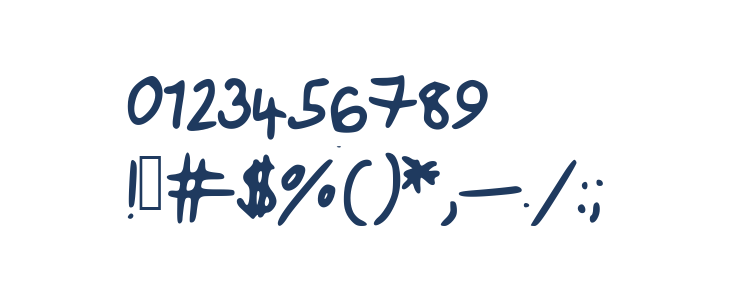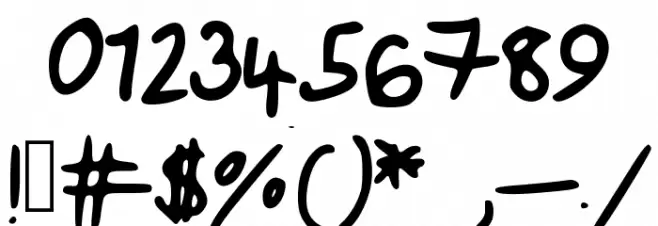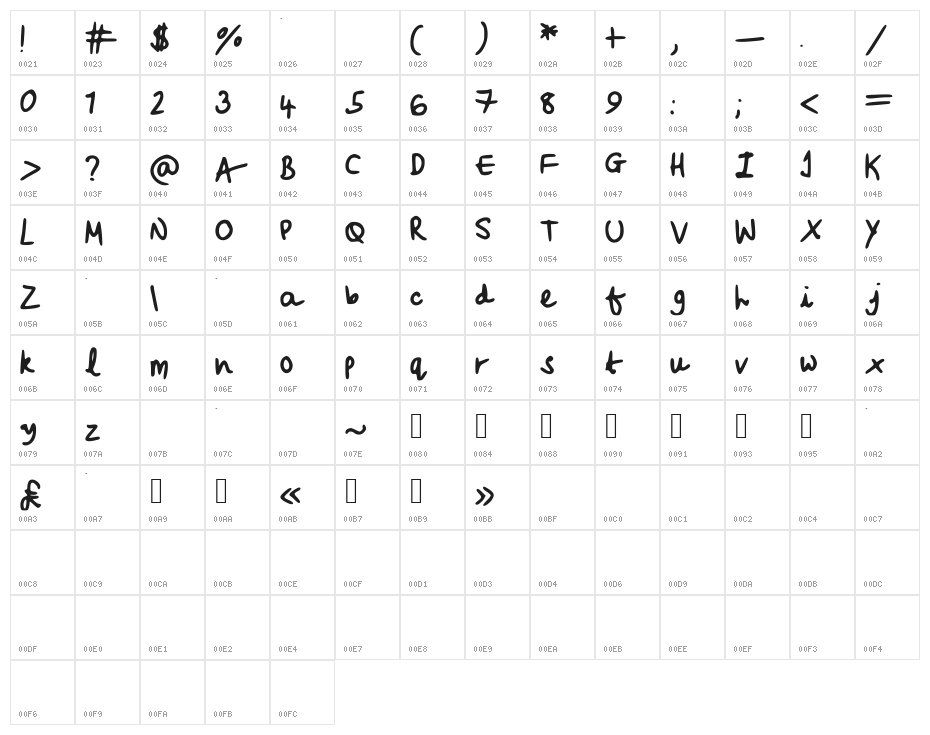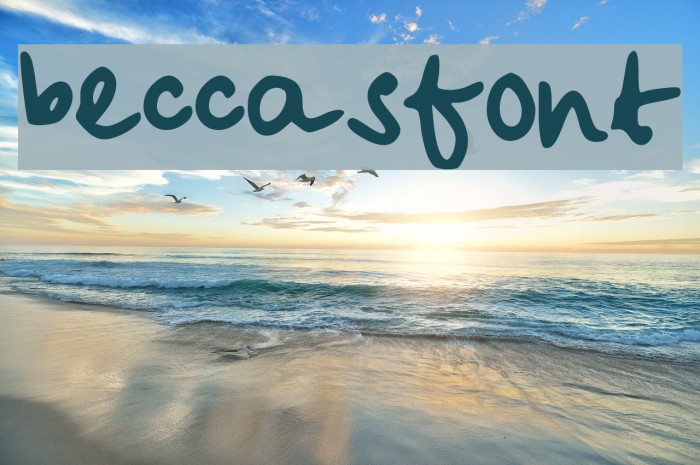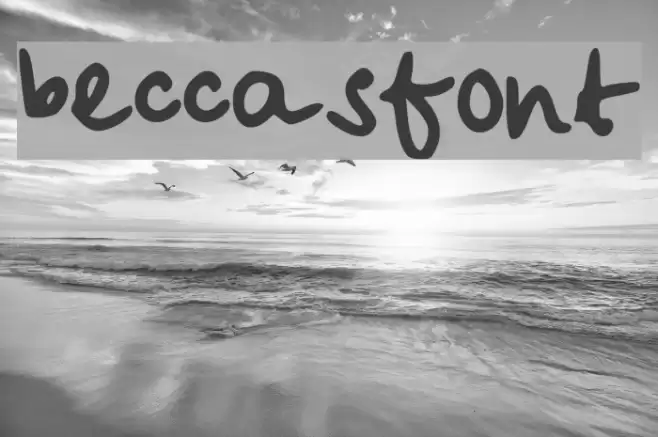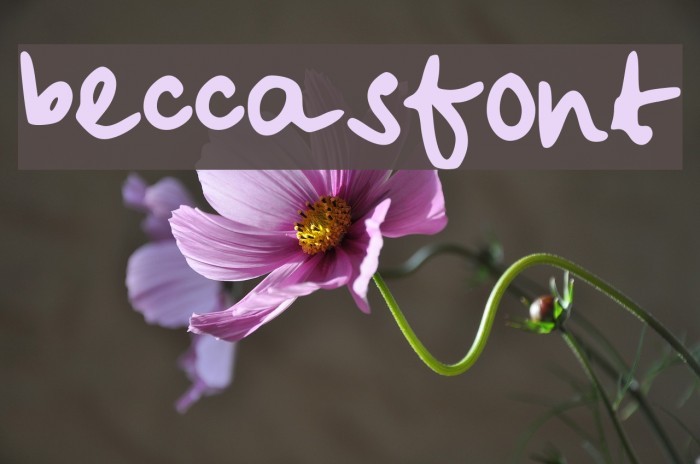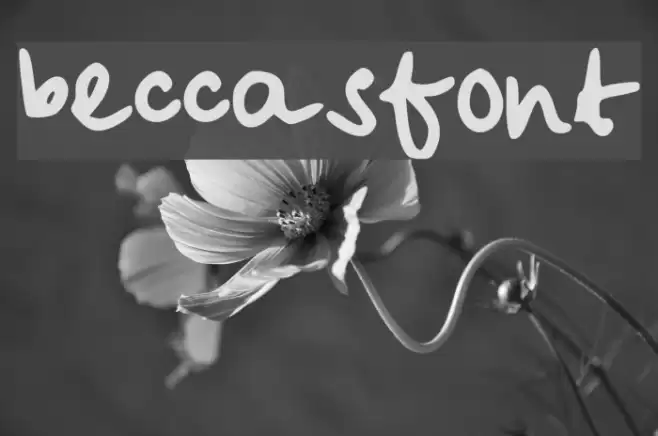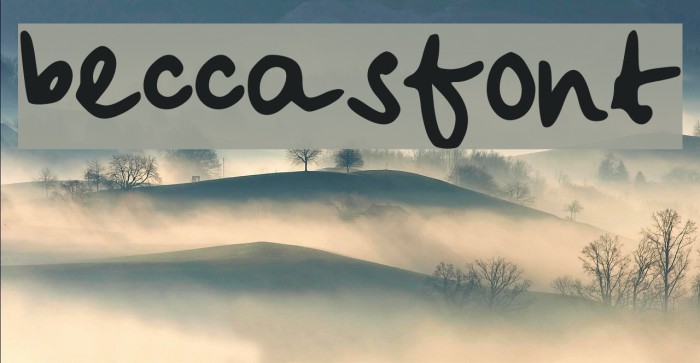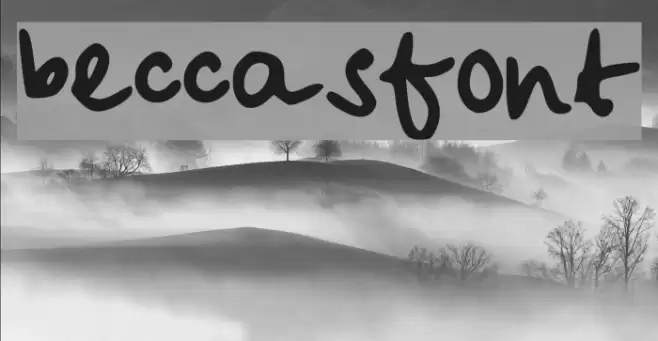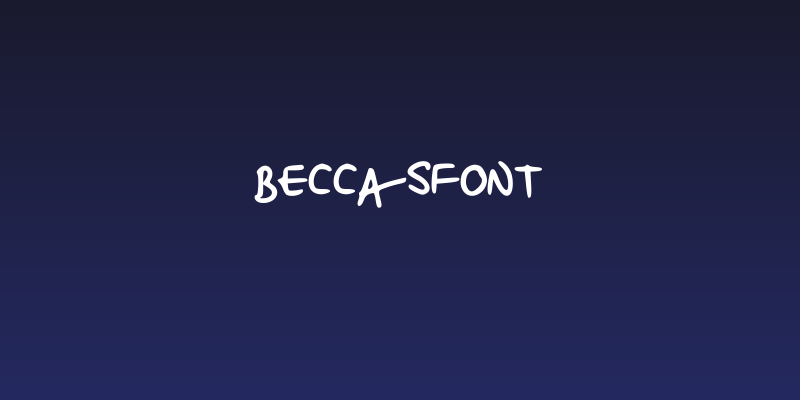
beccasfont Font
beccasfont Description
This playful and energetic font features a handwritten style with a casual, informal appearance. The letters are bold and slightly irregular, giving them a dynamic and lively feel. The strokes are thick and consistent, with rounded edges that add a friendly touch. The uppercase and lowercase letters maintain a cohesive look, while the numbers and special characters complement the overall style. This font's unique character makes it stand out, perfect for projects that require a personal and approachable vibe.
BECCASFONT UPPERCASE
BECCASFONT LOWERCASE
BECCASFONT OTHER CHARS